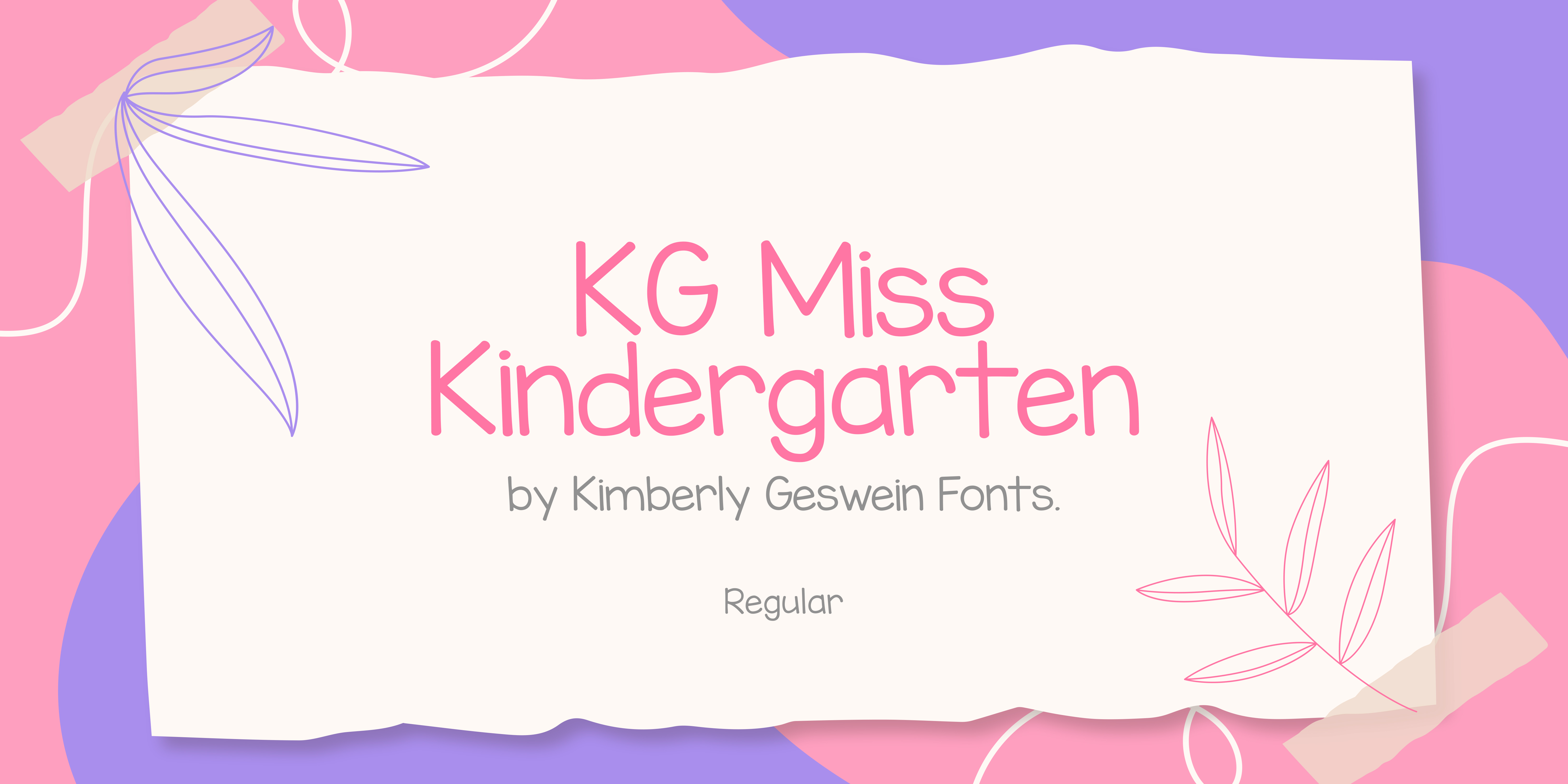
K G Miss Kindergarten Font
K G Miss Kindergarten Font - 1001fonts general font usage terms Download and install the kg miss kindergarten font by kimberly geswein. Free download of kg miss kindergarten font. Click now to create a custom image with your own. Kg miss kindergarten is licensed under the following terms: The kg miss kindergarten font has been downloaded 27,982 times. This cute handwritten font was created alongside miss kindergarten. It is a handwritten teacher style font. This download gives you the right to use this font for personal use only.
1001fonts general font usage terms This download gives you the right to use this font for personal use only. It is a handwritten teacher style font. Click now to create a custom image with your own. Download and install the kg miss kindergarten font by kimberly geswein. This cute handwritten font was created alongside miss kindergarten. Kg miss kindergarten is licensed under the following terms: Free download of kg miss kindergarten font. The kg miss kindergarten font has been downloaded 27,982 times.
The kg miss kindergarten font has been downloaded 27,982 times. This cute handwritten font was created alongside miss kindergarten. Click now to create a custom image with your own. 1001fonts general font usage terms It is a handwritten teacher style font. Download and install the kg miss kindergarten font by kimberly geswein. This download gives you the right to use this font for personal use only. Kg miss kindergarten is licensed under the following terms: Free download of kg miss kindergarten font.
The kg miss kindergarten font has been downloaded 27,982 times. It is a handwritten teacher style font. This download gives you the right to use this font for personal use only. Click now to create a custom image with your own. Kg miss kindergarten is licensed under the following terms:
The kg miss kindergarten font has been downloaded 27,982 times. This cute handwritten font was created alongside miss kindergarten. Click now to create a custom image with your own. Free download of kg miss kindergarten font. Kg miss kindergarten is licensed under the following terms:
1001fonts general font usage terms Kg miss kindergarten is licensed under the following terms: It is a handwritten teacher style font. Free download of kg miss kindergarten font. This cute handwritten font was created alongside miss kindergarten.
This download gives you the right to use this font for personal use only. Download and install the kg miss kindergarten font by kimberly geswein. This cute handwritten font was created alongside miss kindergarten. Free download of kg miss kindergarten font. Kg miss kindergarten is licensed under the following terms:
This cute handwritten font was created alongside miss kindergarten. This download gives you the right to use this font for personal use only. Click now to create a custom image with your own. The kg miss kindergarten font has been downloaded 27,982 times. Kg miss kindergarten is licensed under the following terms:
This cute handwritten font was created alongside miss kindergarten. This download gives you the right to use this font for personal use only. It is a handwritten teacher style font. Click now to create a custom image with your own. The kg miss kindergarten font has been downloaded 27,982 times.
This Cute Handwritten Font Was Created Alongside Miss Kindergarten.
The kg miss kindergarten font has been downloaded 27,982 times. 1001fonts general font usage terms Download and install the kg miss kindergarten font by kimberly geswein. It is a handwritten teacher style font.